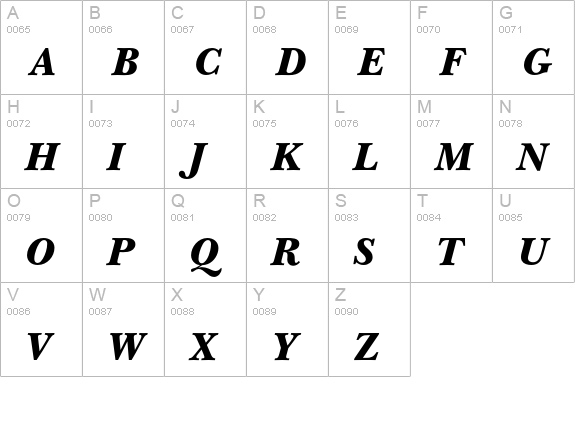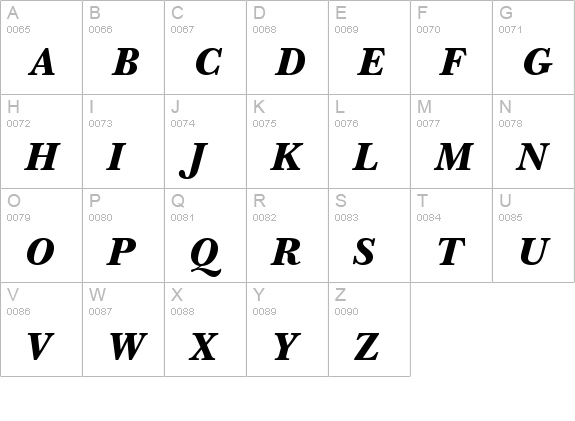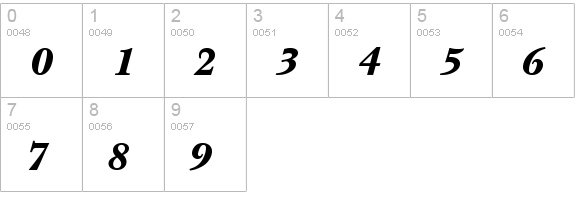
NewBaskervilleEF-BlackItalic is a sophisticated and elegant font that exudes a sense of timeless style and class. Its bold and italic design adds a touch of drama and flair to any text, making it perfect for creating eye-catching headlines or adding emphasis to important information. The sharp serifs and clean lines of this typeface give it a polished and professional appearance that is sure to impress. What sets NewBaskervilleEF-BlackItalic apart is not only its striking aesthetics but also the fact that it is available for free download at FontsMarket.com. This means that you can easily access and use this stunning font in your projects without any cost, making it a valuable resource for designers, writers, and creatives looking to elevate their work with a touch of sophistication. Whether you're designing a website, crafting a brochure, or working on a branding project, NewBaskervilleEF-BlackItalic is a versatile and stylish choice that will help you make a bold statement.